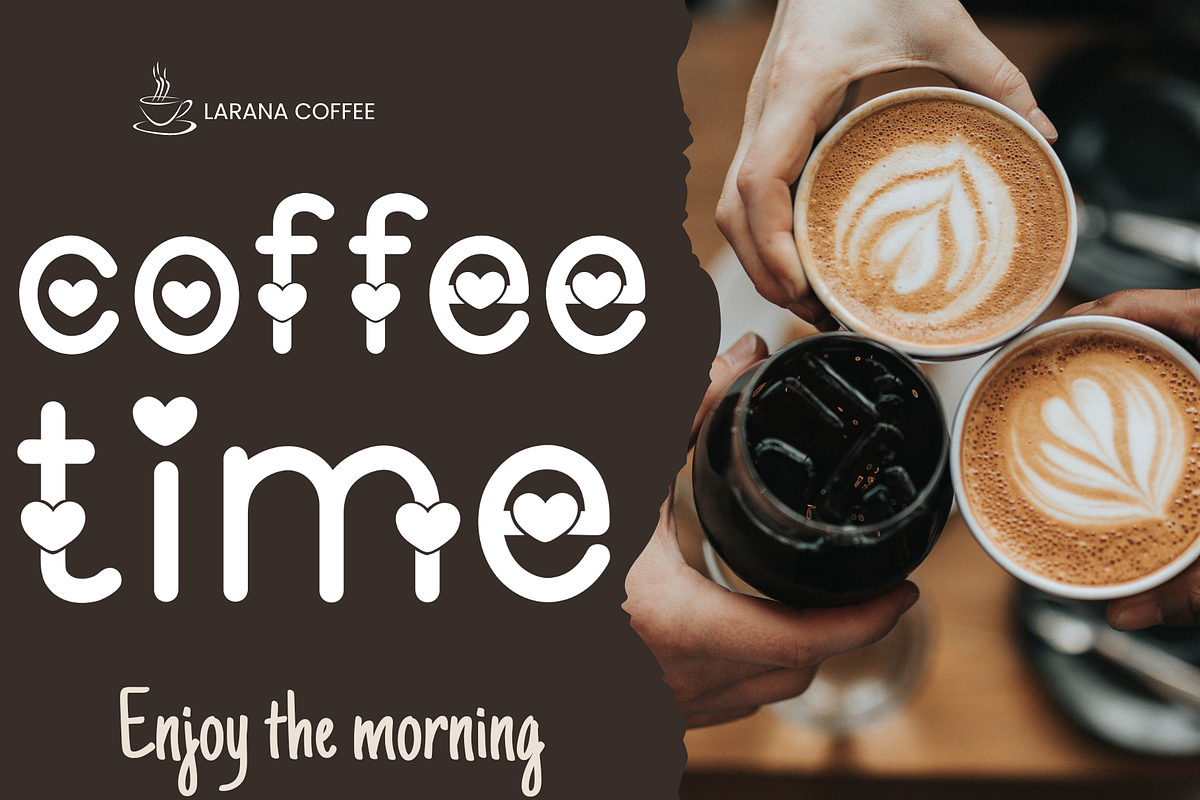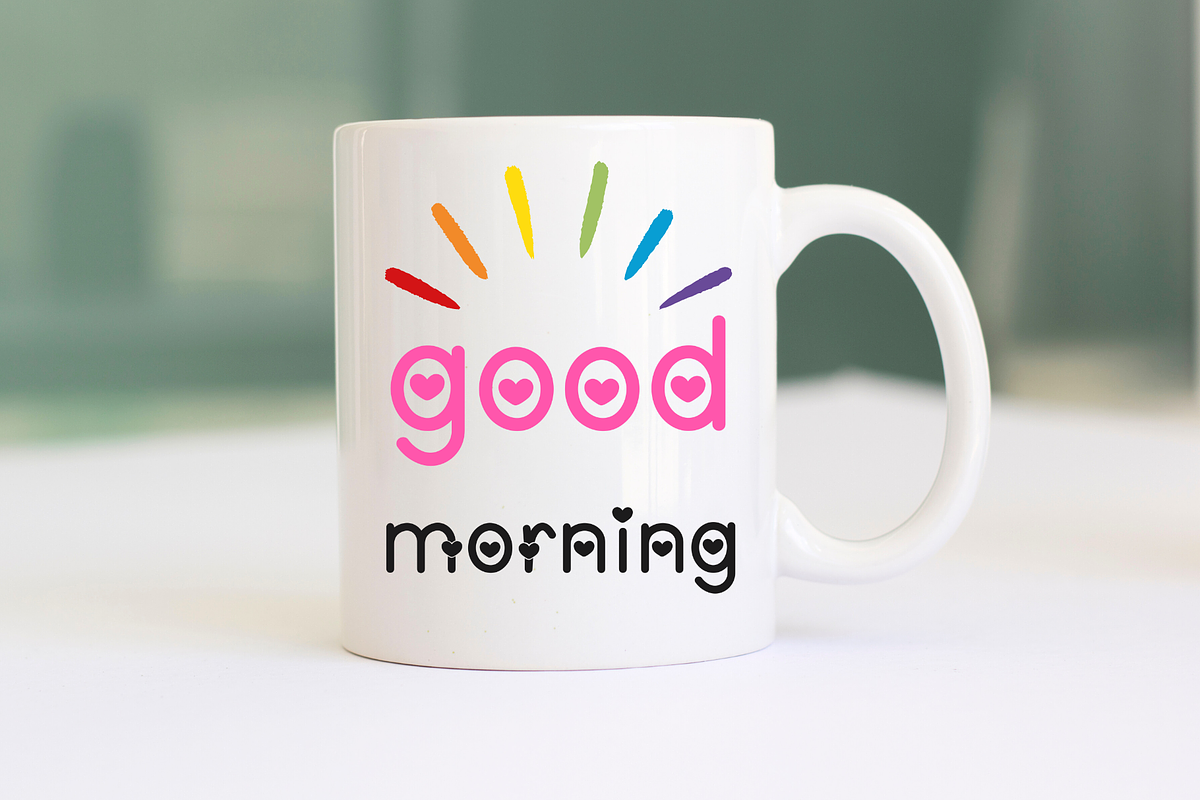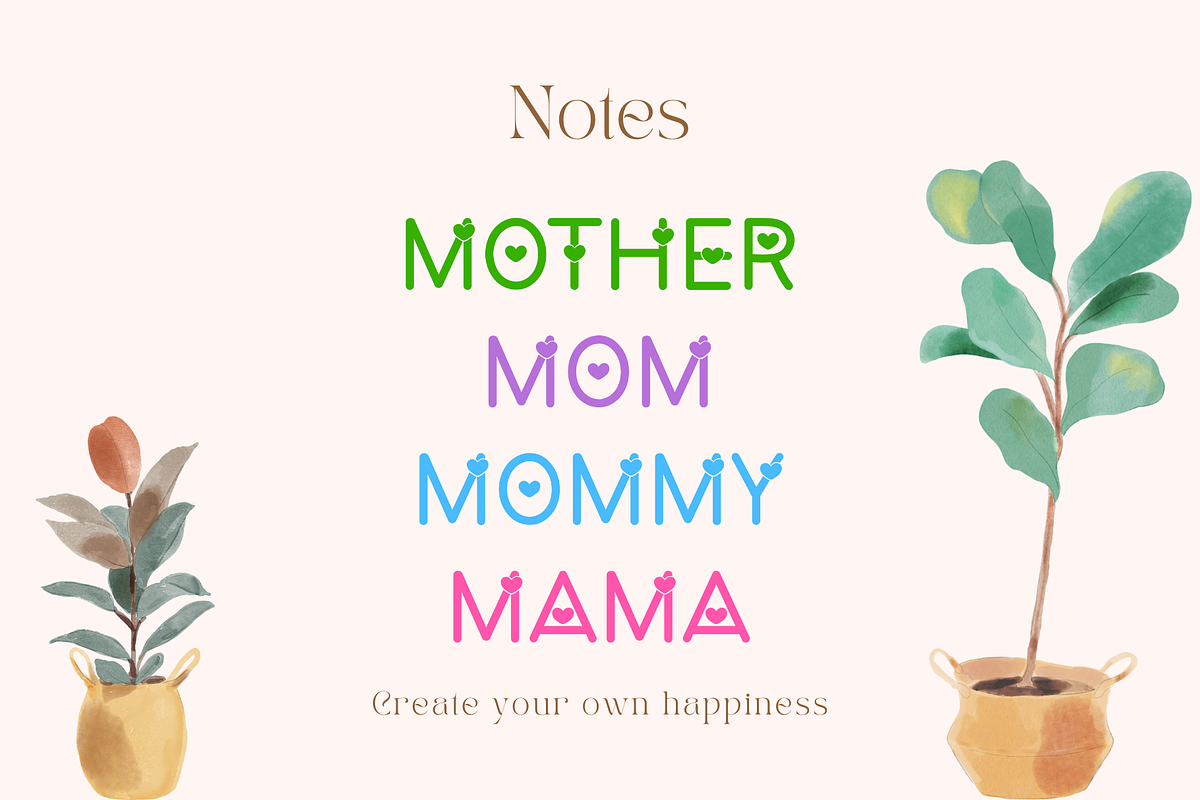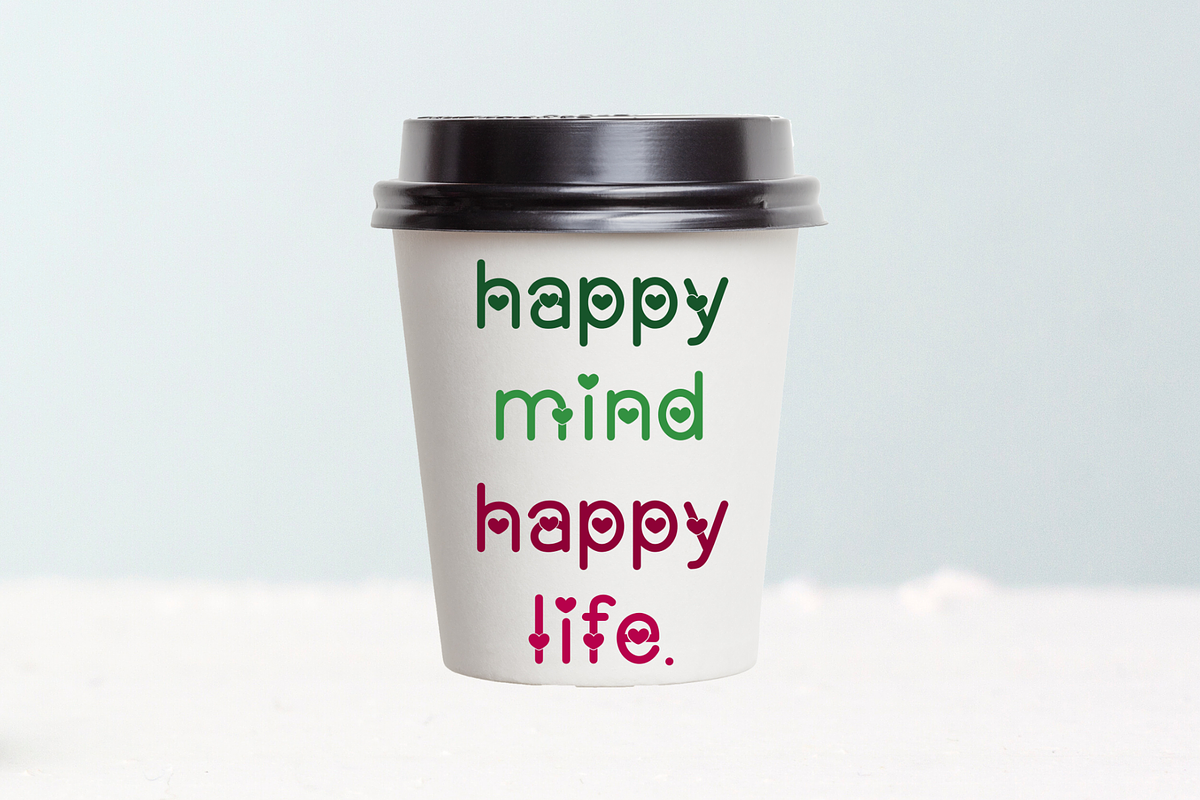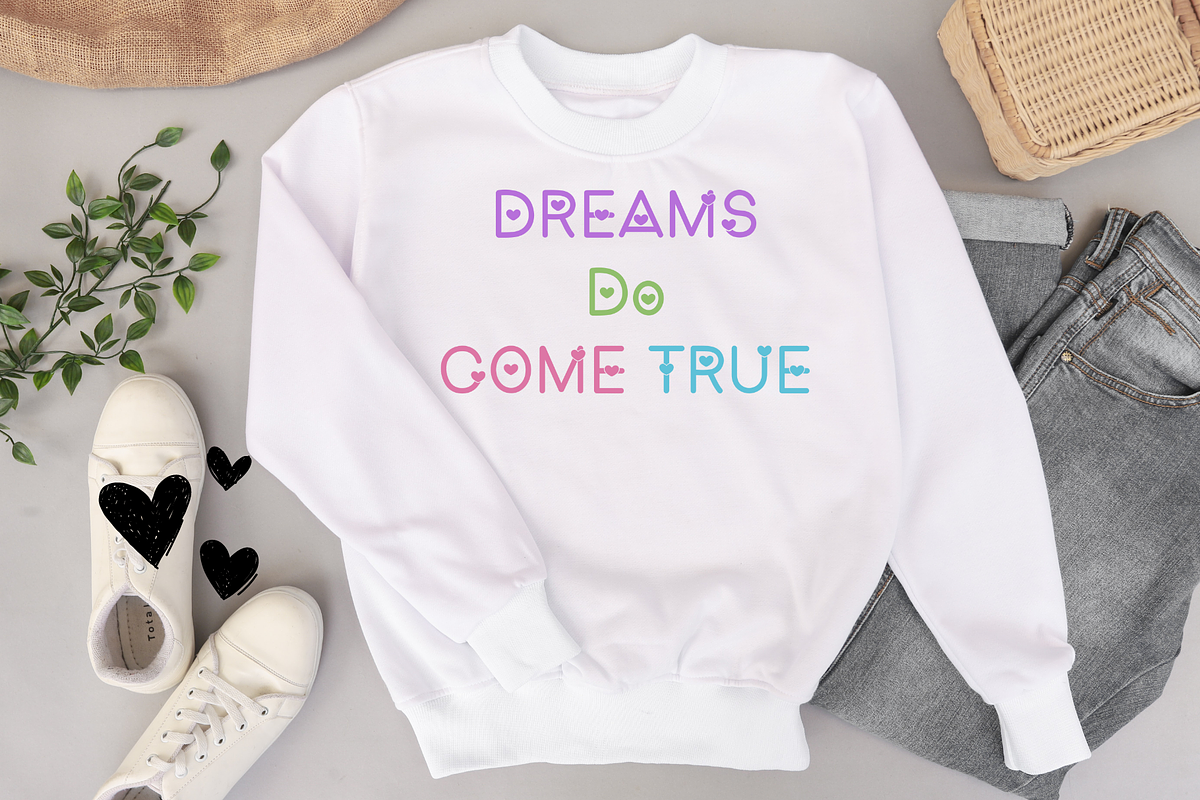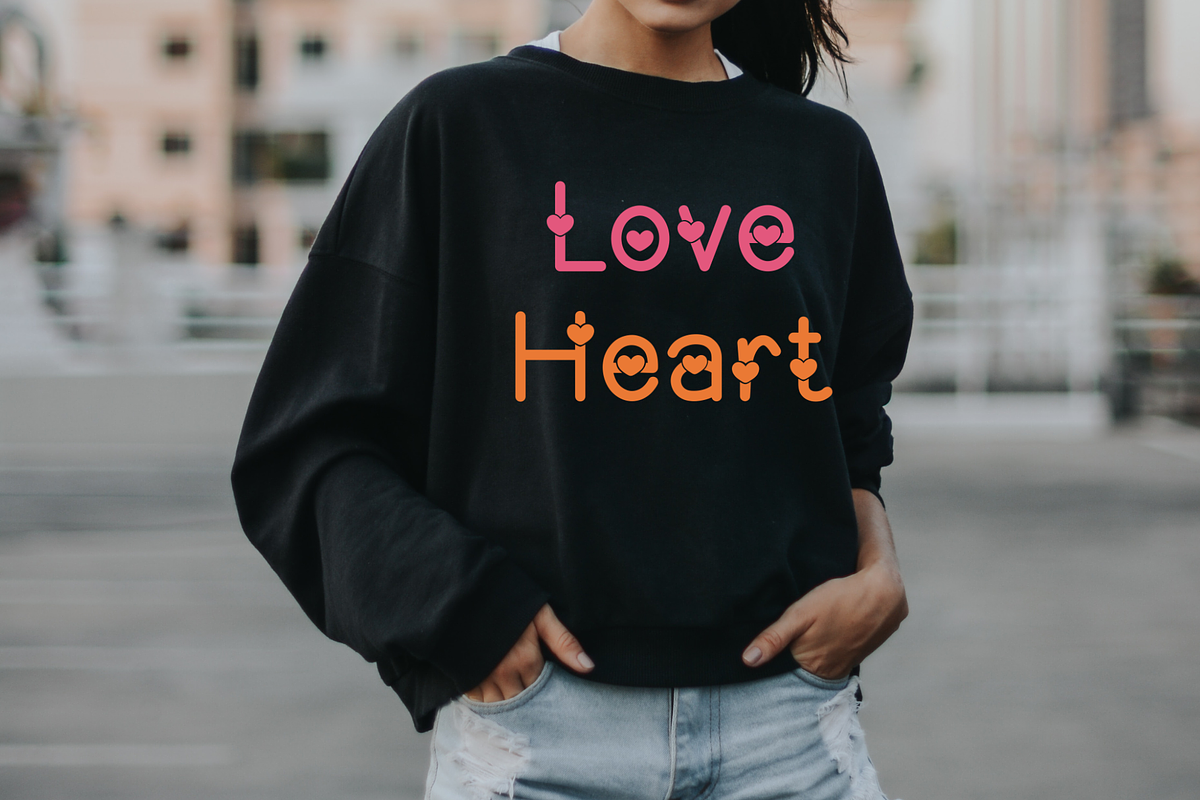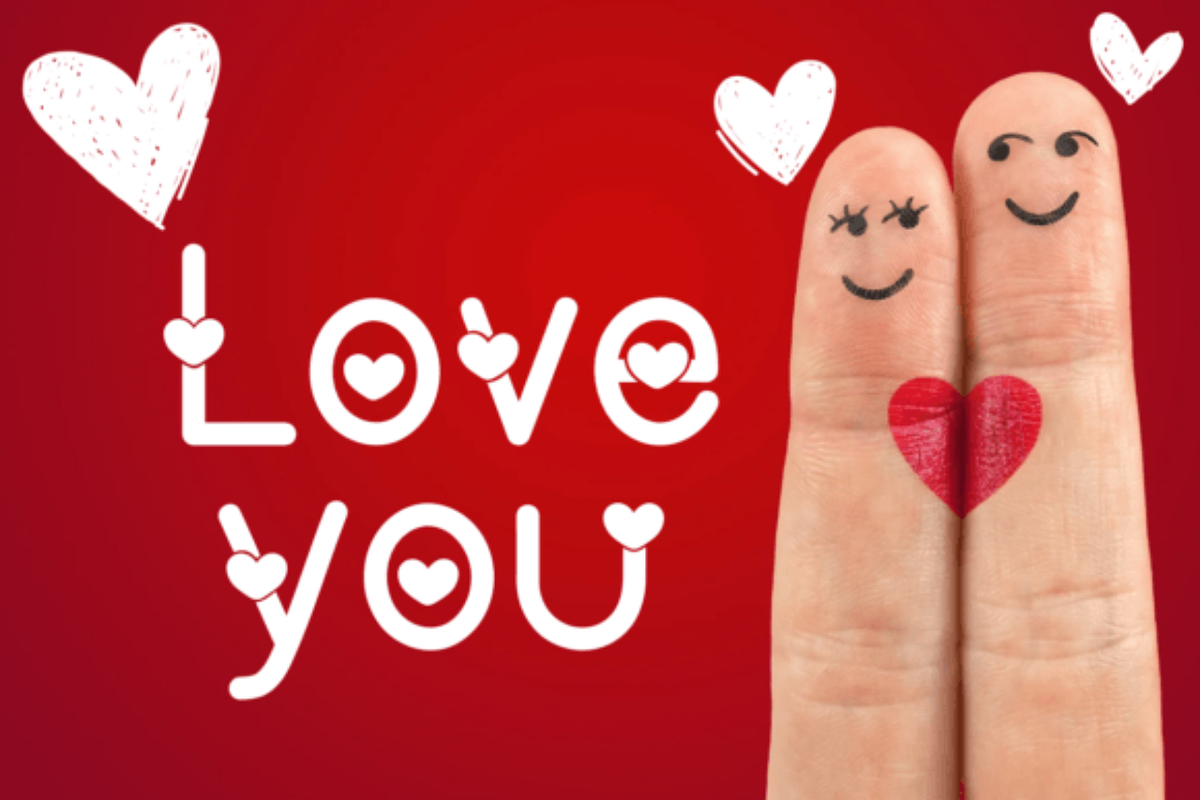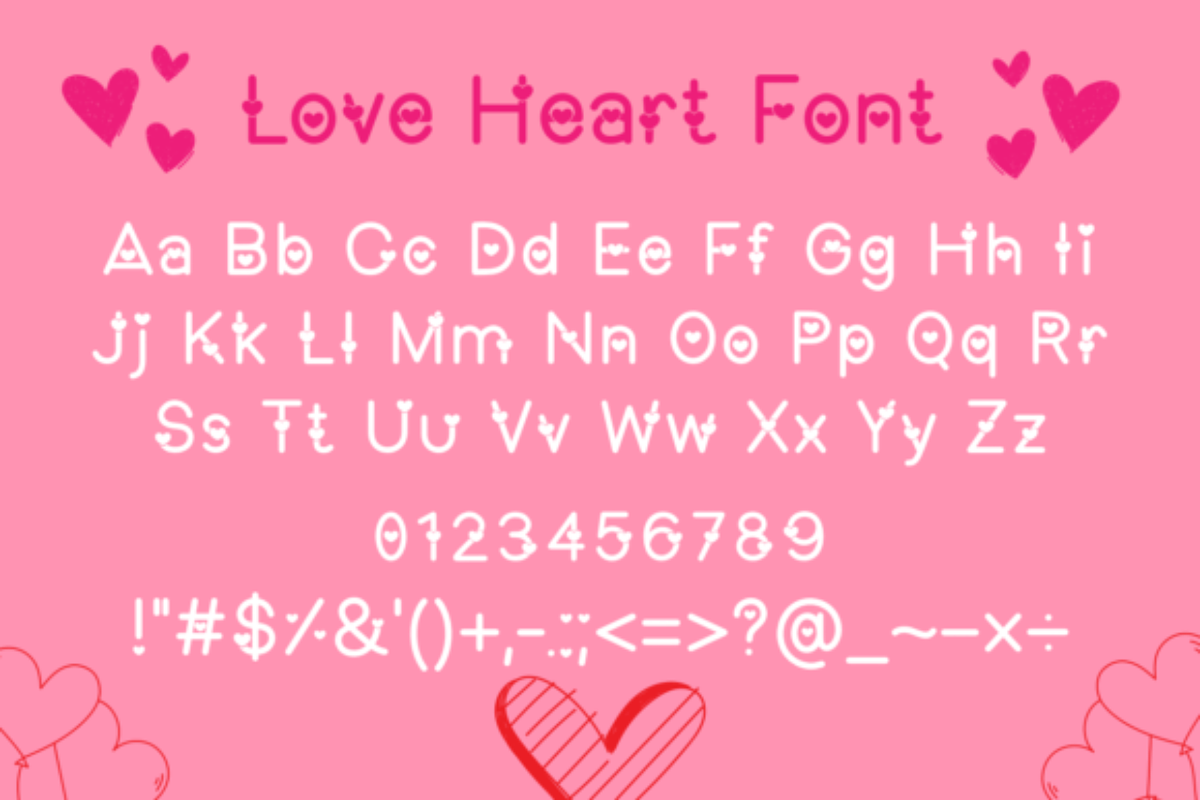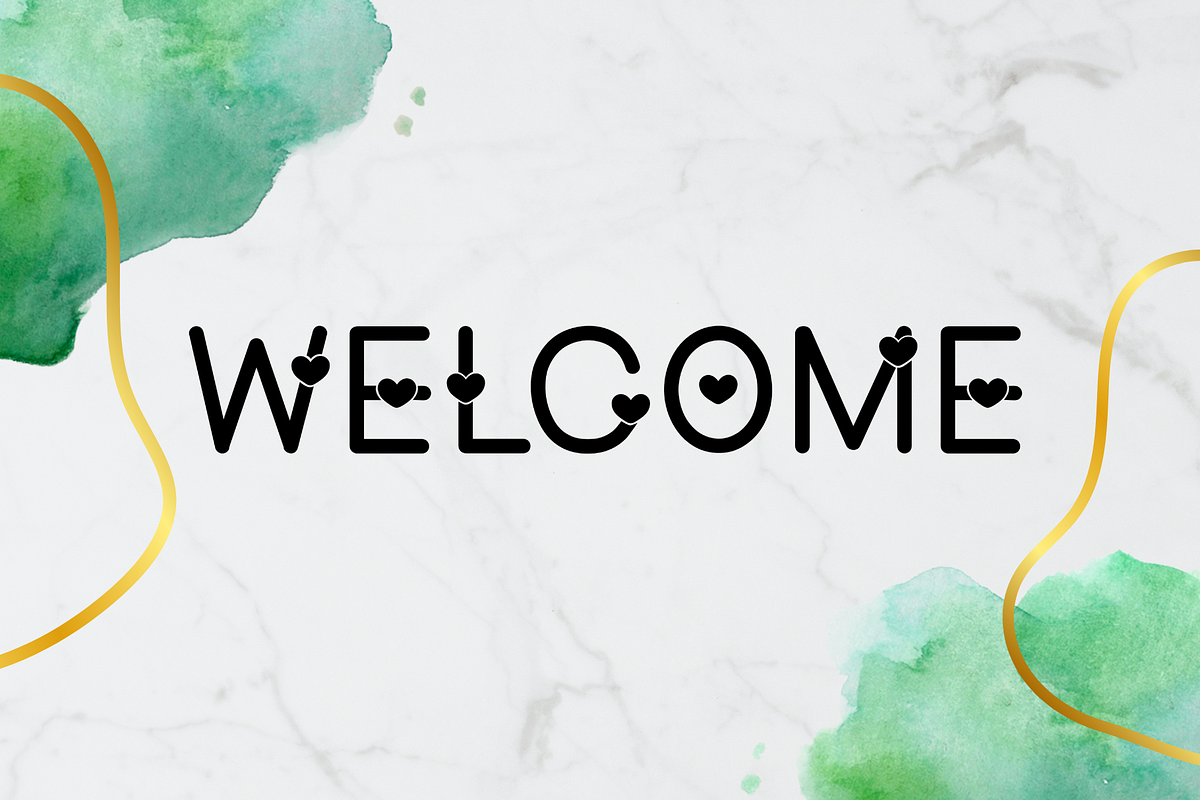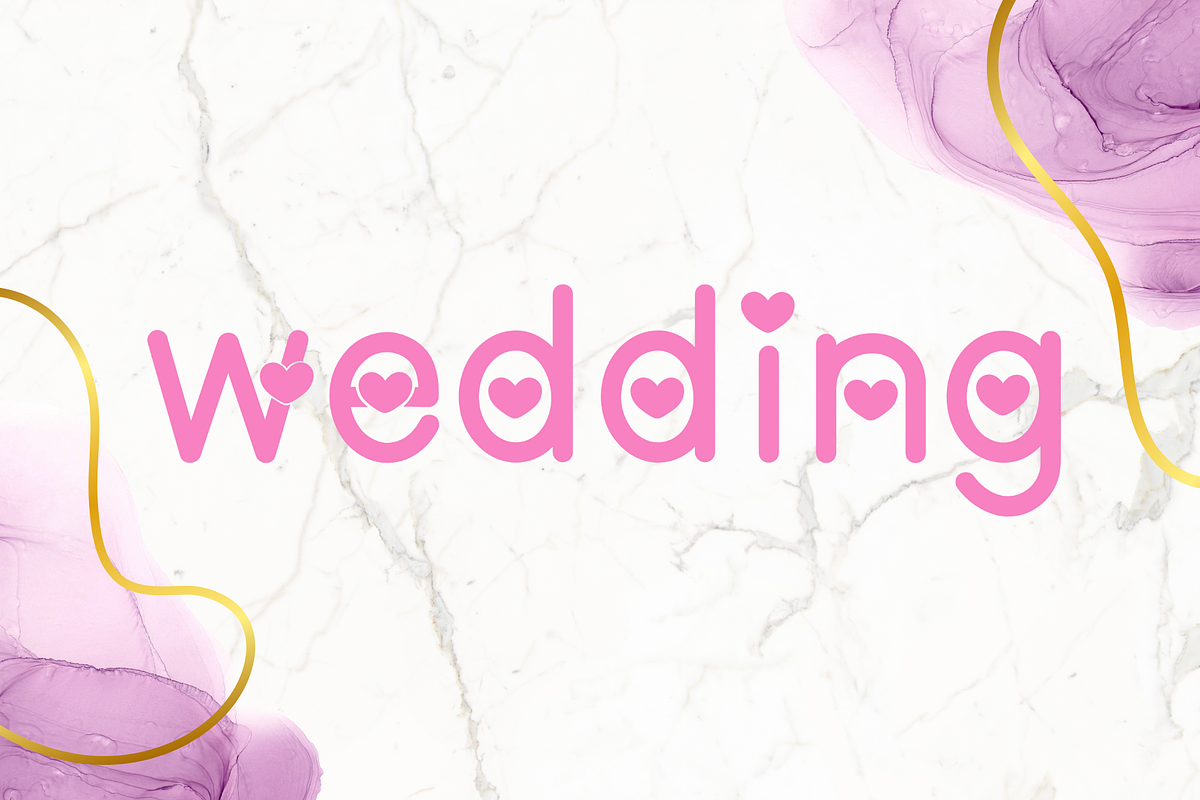
Love Heart Font
Love Heart is a cute and adorable decorative font suitable for designing T-shirts, tote bags, hats, stickers, wedding invitations, logos, cards, quotes, and more!